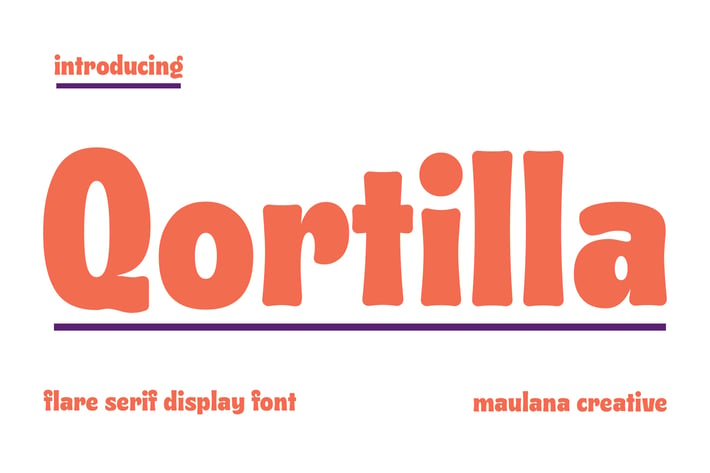
Qortilla Flare Serif Display Font
Qortilla is a Decorative flare Serif Display font. Bold stroke, fun character with a bit of ligatures and alternates. To give you an extra creative work. Qortilla font support multilingual more than 100+ language. This font is good for logo design, Social media, Movie Titles, Books Titles, a short text even a long text letter and good for your secondary text font with script or serif. Make a stunning work with Qortilla font.